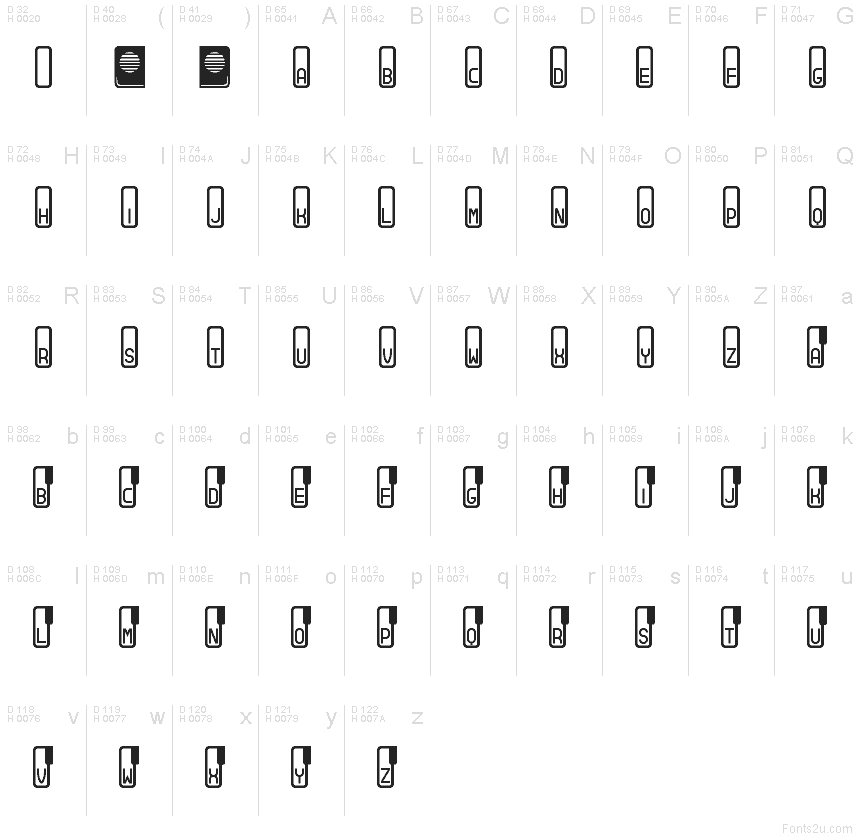
Yamaha Bubble Regular
Yamaha Bubble font by Vladimir Nikolic is a display typeface with a condensed, decorative, and slightly retro-futuristic appeal. With its uniformly rounded design and geometric influence, this font integrates seamlessly with various design elements to give the final result of each project a unique look.
A free decorative typeface from Vladimir Nikolic, this font suits signage designs, headlines, titles for magazines and newspapers for fun typography or occasional logos. Yamaha Bubble can also be used on packaging projects while allowing users to still feature other texts within body copy in a stylish manner.